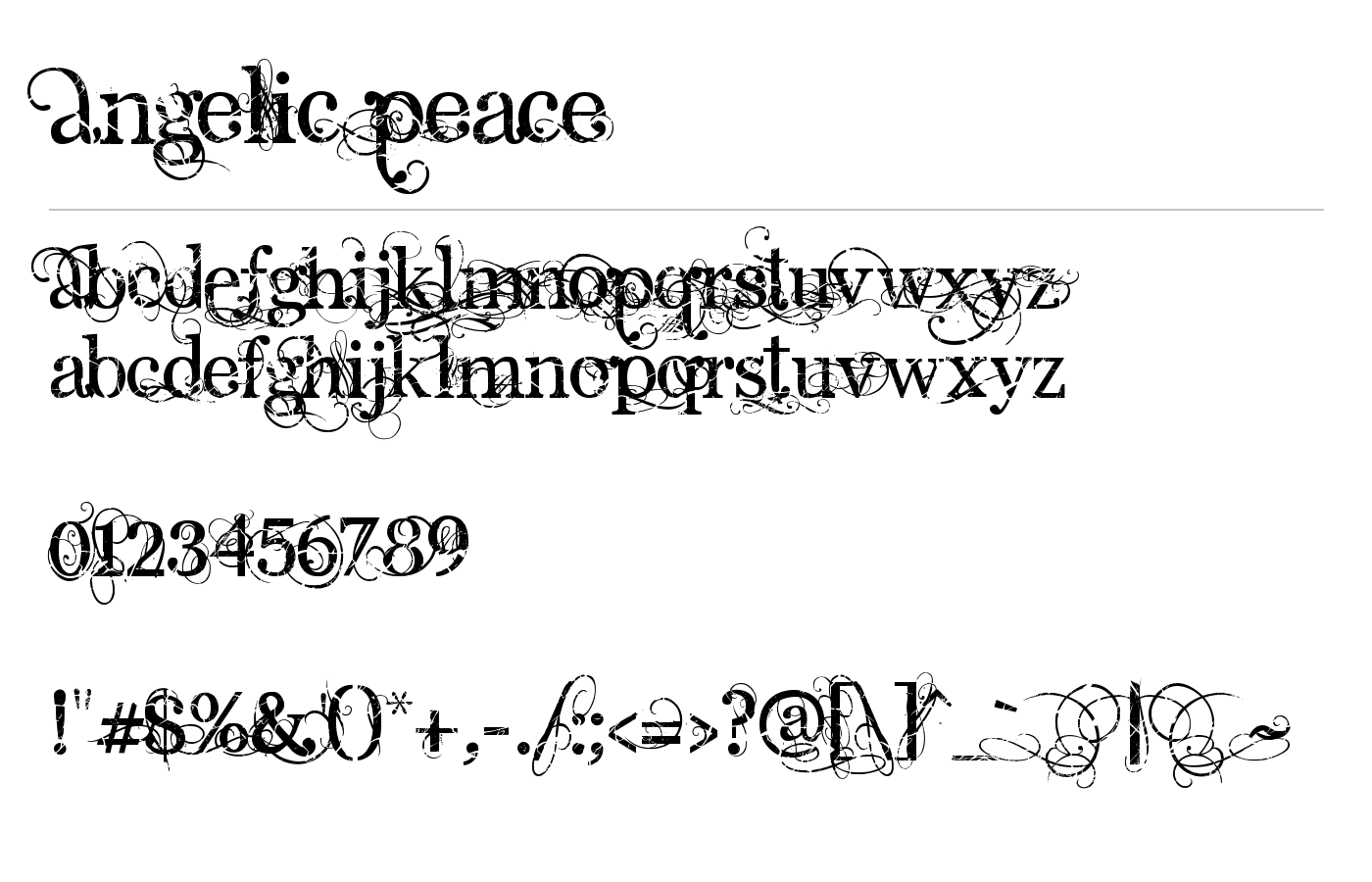
Angelic Peace is a decorative serif font characterized by its high contrast strokes and ornate swirls that swirl dramatically around each character, giving it a baroque and vintage feel. The intricate flourishes and textured forms create a sense of elegance mixed with artistic chaos, making it ideal for eye-catching headlines, invitations, or branding that seeks to convey luxury with a whimsical, artistic edge. Its unique style works best in display settings where its elaborate details can be appreciated, rather than in body text.
Angelic Peace Font
About Angelic Peace Font
| Font family | Angelic Peace Font |
| Designer | Dirt2.com |